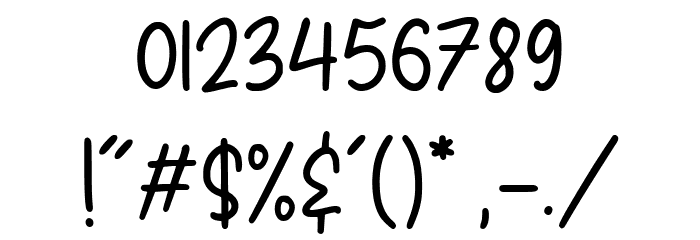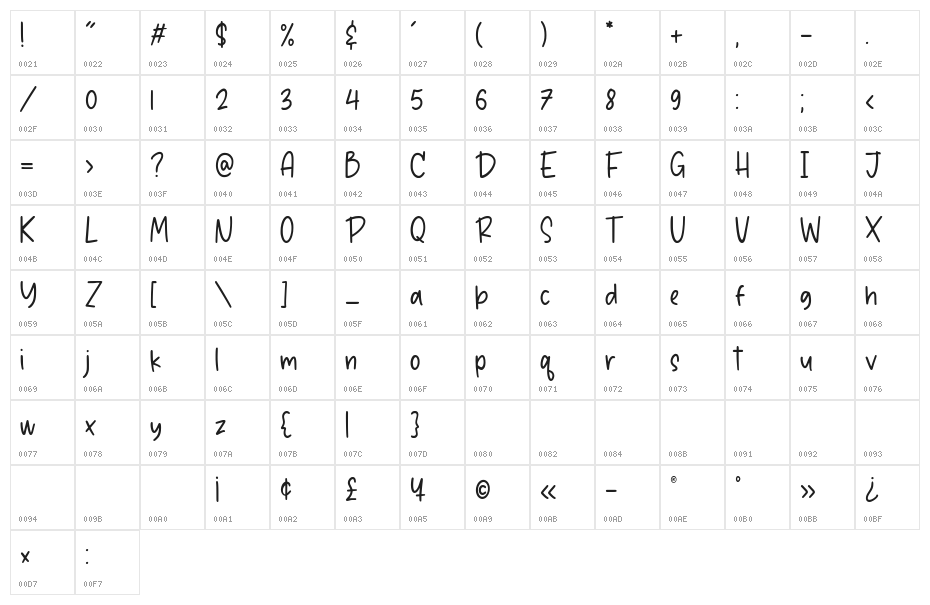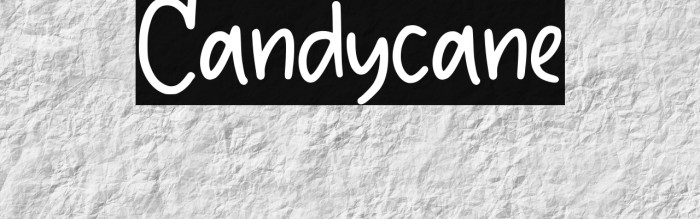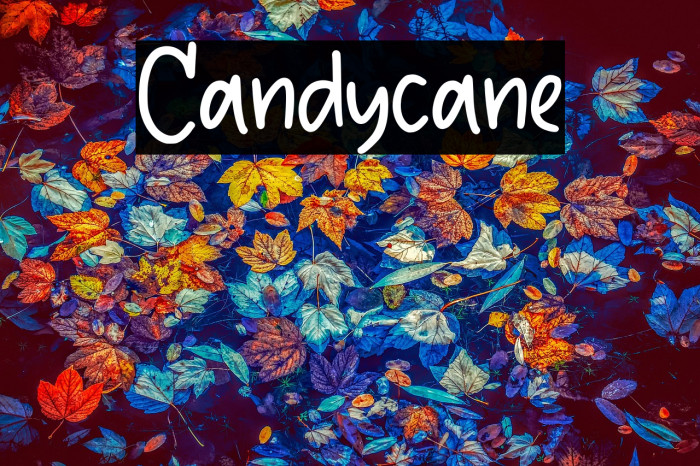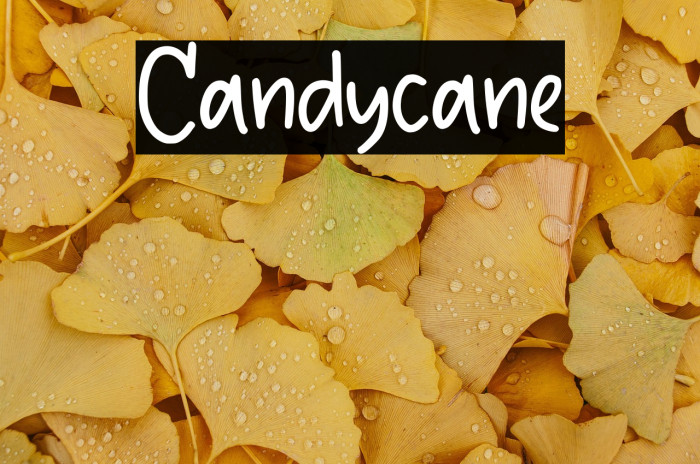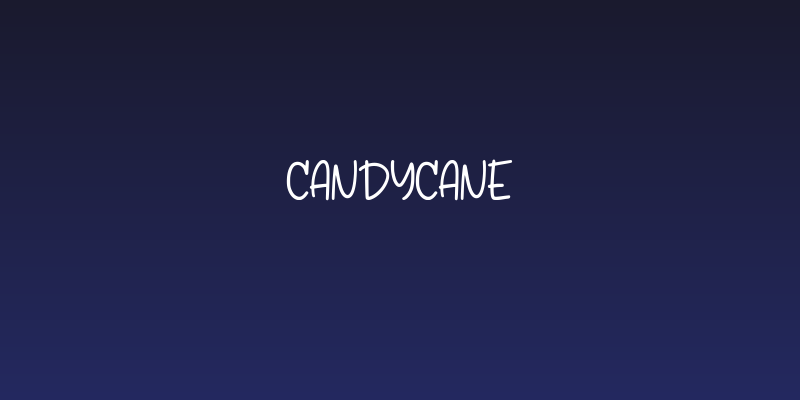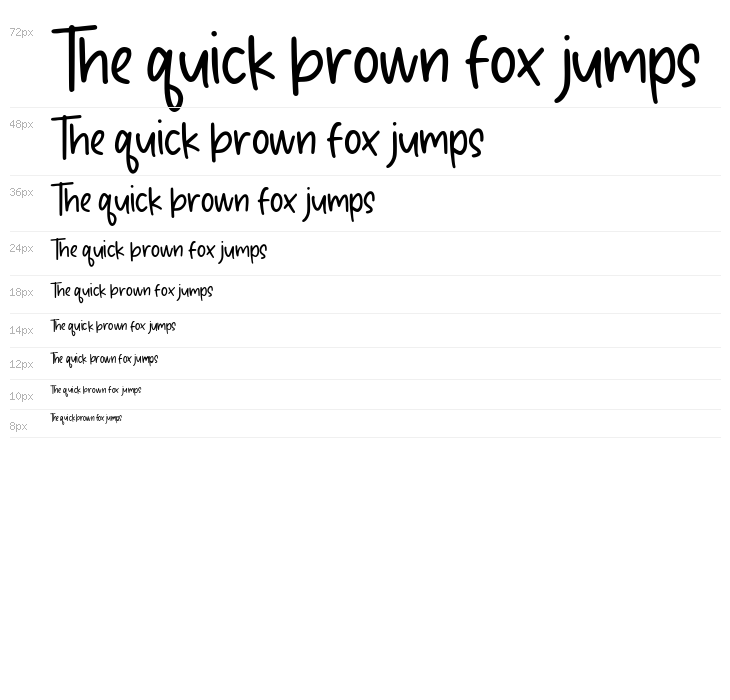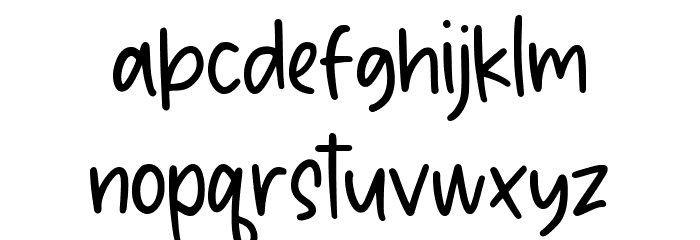
Candycane Font
Candycane Description
This playful and whimsical font features a handwritten style with a casual and friendly appearance. The characters are slightly irregular, adding a personal touch to the text. The strokes are consistent in width, giving it a uniform look while maintaining a lively feel. The uppercase letters are tall and slightly narrow, while the lowercase letters are more rounded and open. The numbers and special characters follow the same playful style, making it suitable for informal and creative projects.